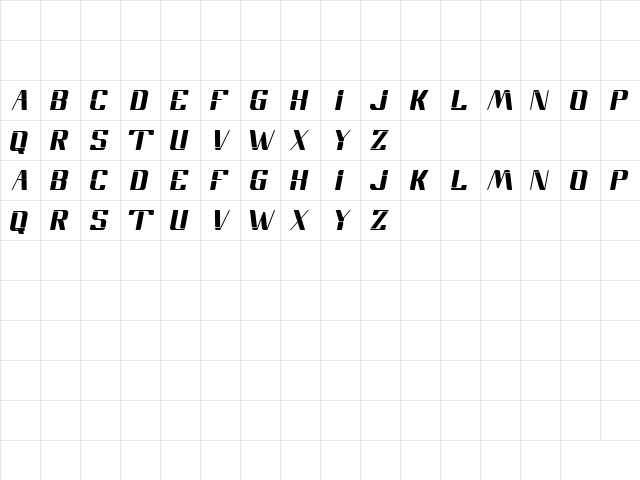
shift Pro Regular
| Designer | Hartadi Chrisna - Alpha Beta design studio |
Design Context for shift Pro Typeface
shift Pro is a composed and adaptable typeface that performs quietly and consistently across a wide range of design contexts.
Pro Tip: Pair shift Pro with a font of contrasting weight or personality to build a more expressive typographic hierarchy.